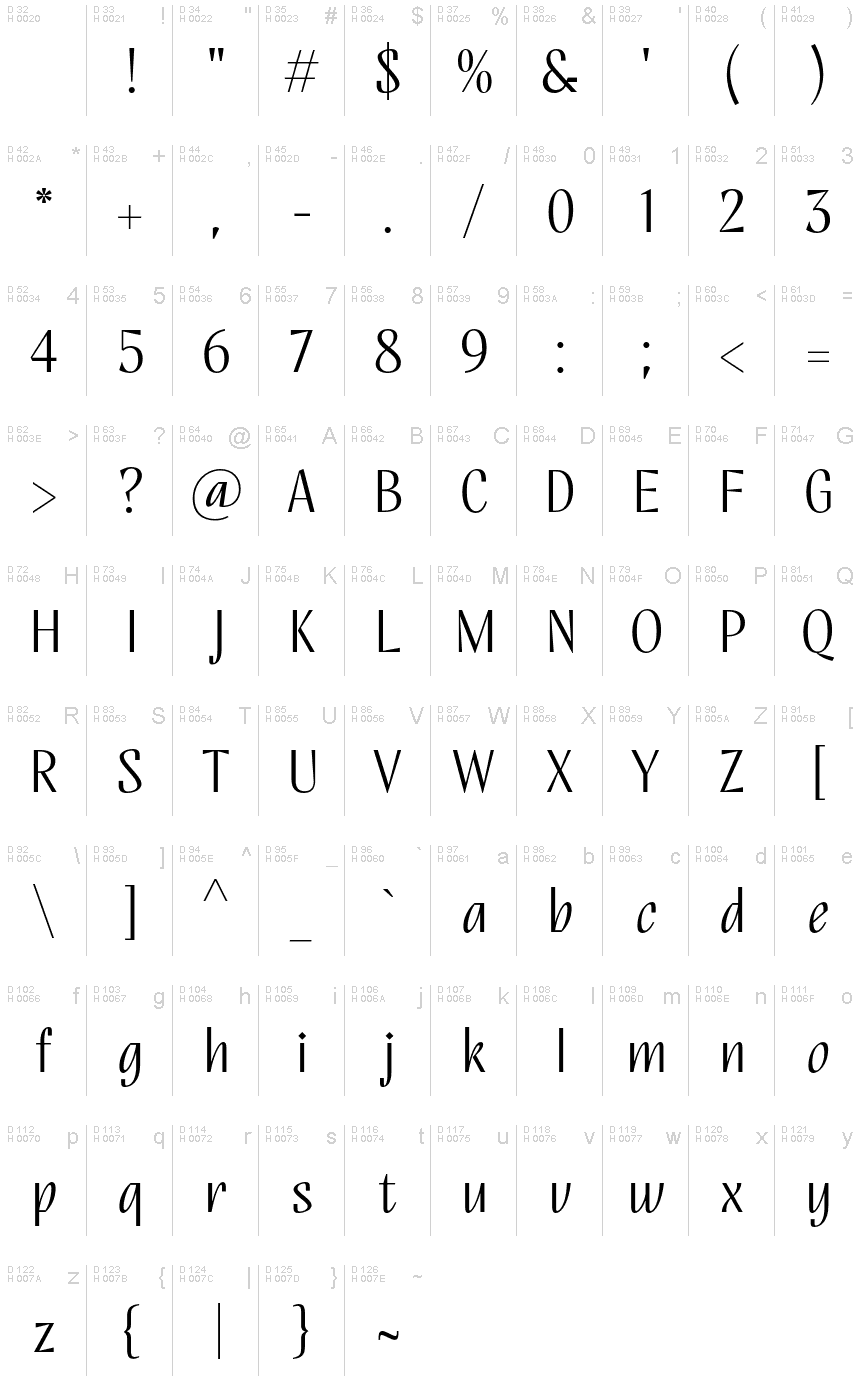
TT Nooks Script Light is a beautifully designed sans-serif font with a charming handwritten touch. Created by the talented team at TypeType Foundry, this font brings a sense of elegance and sophistication to any project. Its light weight is perfect for titles and headings, providing a subtle yet striking impact. This font is ideal for branding projects such as logos, packaging, and social media graphics. Its graceful curves are also well-suited for wedding invitations or other formal events. TT Nooks Script Light truly adds a touch of class to any design project.
Presentazione e campione visivo del carattere TT Nooks Script Trial Light
Mappa dei caratteri di TT Nooks Script Trial Light
Glifi del carattere TT Nooks Script Trial Light — Latino di base, pagina 1
TT Nooks Script Trial Light